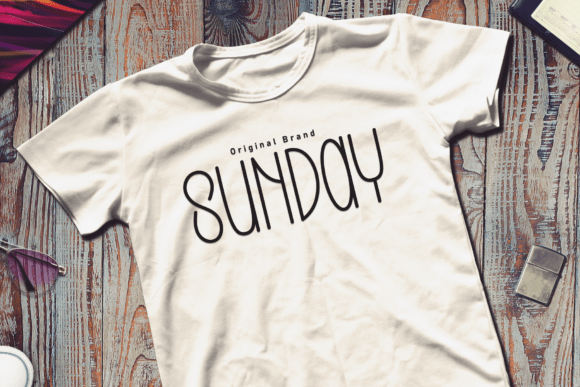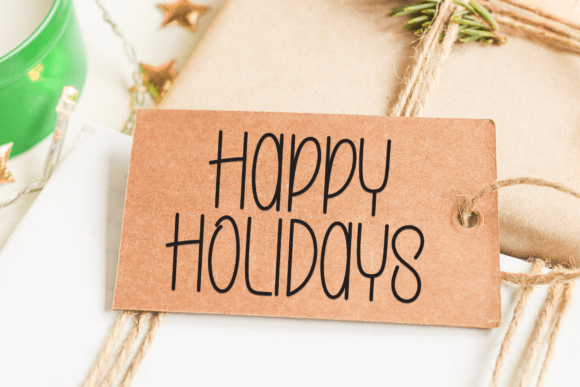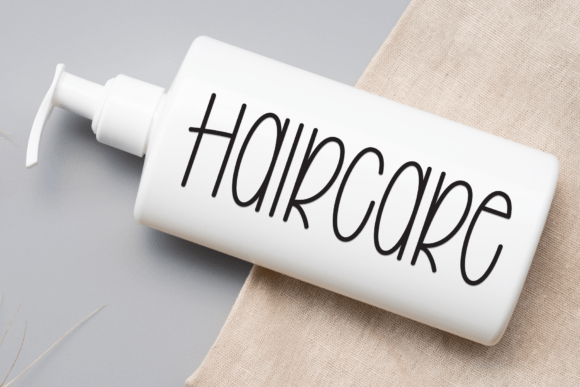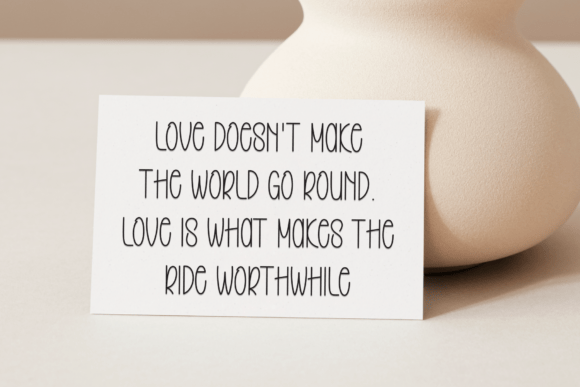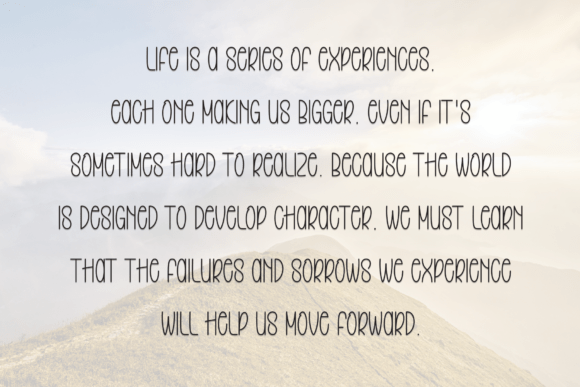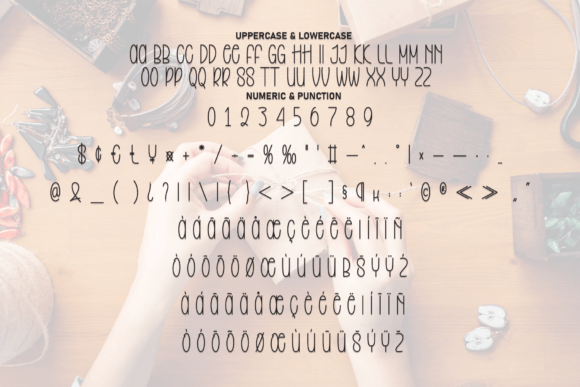
Introducing the Enchanting Handmade Font: Elevate Your Designs with Whimsical Charm
Are you on the hunt for a font that injects a dose of personality and warmth into your design projects? Look no further! We’re thrilled to introduce the Handmade Font, a stunning and personable handwritten display font that exudes charm and character. With its delightful allure, this font embodies an essence of joy and warmth, perfect for crafting wedding invitations, greeting cards, or any design project that craves a touch of whimsical allure.
The Perfect Blend of Whimsy and Sophistication
The Handmade Font is more than just a collection of letters and symbols; it’s a creative partner designed to elevate your artistry to delightful new heights! Its unique blend of whimsy and sophistication makes it an ideal choice for designers and crafters looking to add a personal touch to their work. Whether you’re creating wedding invitations, branding materials, or social media graphics, this font is sure to make your designs stand out from the crowd.
Key Features of the Handmade Font
- Unique and Quirky Design: The Handmade Font boasts a one-of-a-kind design that’s both quirky and charming. Its irregularities and imperfections give it a distinctly handmade feel that’s sure to capture the hearts of your audience.
- Highly Readable: Despite its whimsical nature, the Handmade Font is highly readable, making it perfect for use in a variety of design projects, from headings and titles to body copy and captions.
- Multilingual Support: The Handmade Font supports multiple languages, making it a great choice for designers working on international projects or with clients who speak different languages.
The Handmade Font offers endless design possibilities, limited only by your imagination! Here are a few ideas to get you started:
- Wedding Invitations: Add a touch of whimsy and romance to your wedding invitations with the Handmade Font. Its delicate and charming design is perfect for couples looking for a unique and personalized way to share their special day with loved ones.
- Greeting Cards: Create one-of-a-kind greeting cards for birthdays, holidays, and special occasions with the Handmade Font. Its quirky design is sure to bring a smile to the recipient’s face!
- Branding and Packaging: Use the Handmade Font to add a personal touch to your branding and packaging materials. Its unique design is sure to help your brand stand out in a crowded market.
- Social Media Graphics: Elevate your social media graphics with the Handmade Font. Its whimsical design is perfect for creating eye-catching graphics that will help you connect with your audience.
Why Choose the Handmade Font?
So why choose the Handmade Font for your design projects? Here are just a few reasons:
- Unique Design: The Handmade Font boasts a unique and quirky design that’s sure to make your designs stand out from the crowd.
- High-Quality: The Handmade Font is a high-quality font that’s designed to deliver exceptional results in a variety of design projects.
Get Ready to Elevate Your Designs!